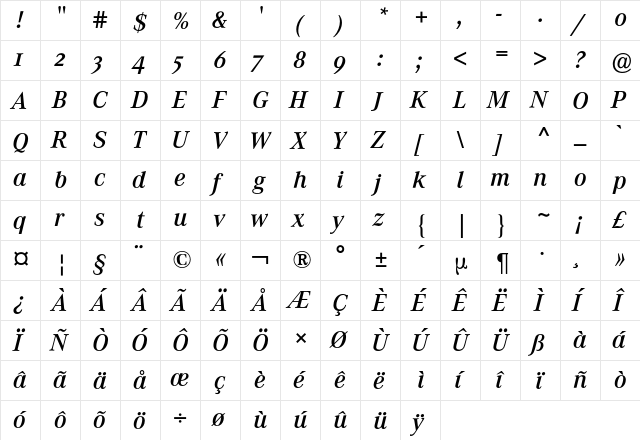
Corporate A Expert BQ Regular Font Preview
Corporate A Expert BQ Regular
Design Context for Corporate A Expert BQ Typeface
Corporate A Expert BQ takes a measured approach to typography — its balanced proportions and neutral character make it a reliable workhorse for both digital and print work.